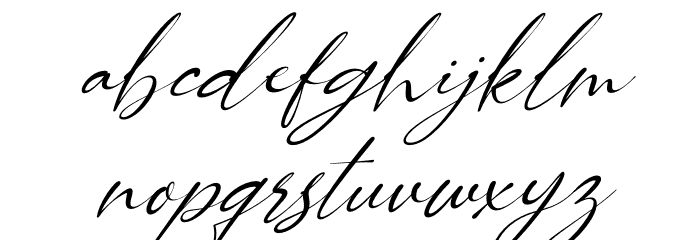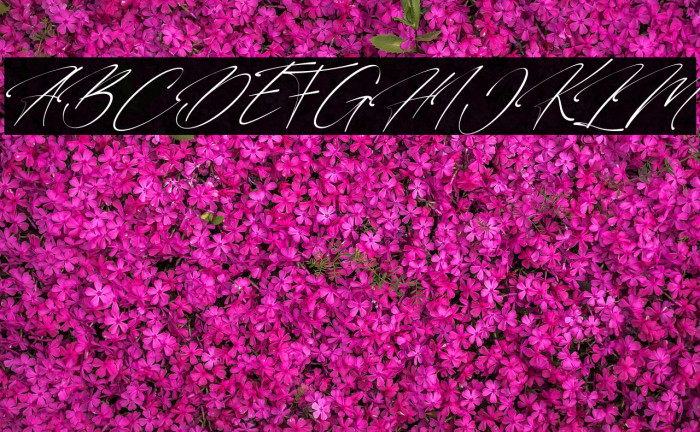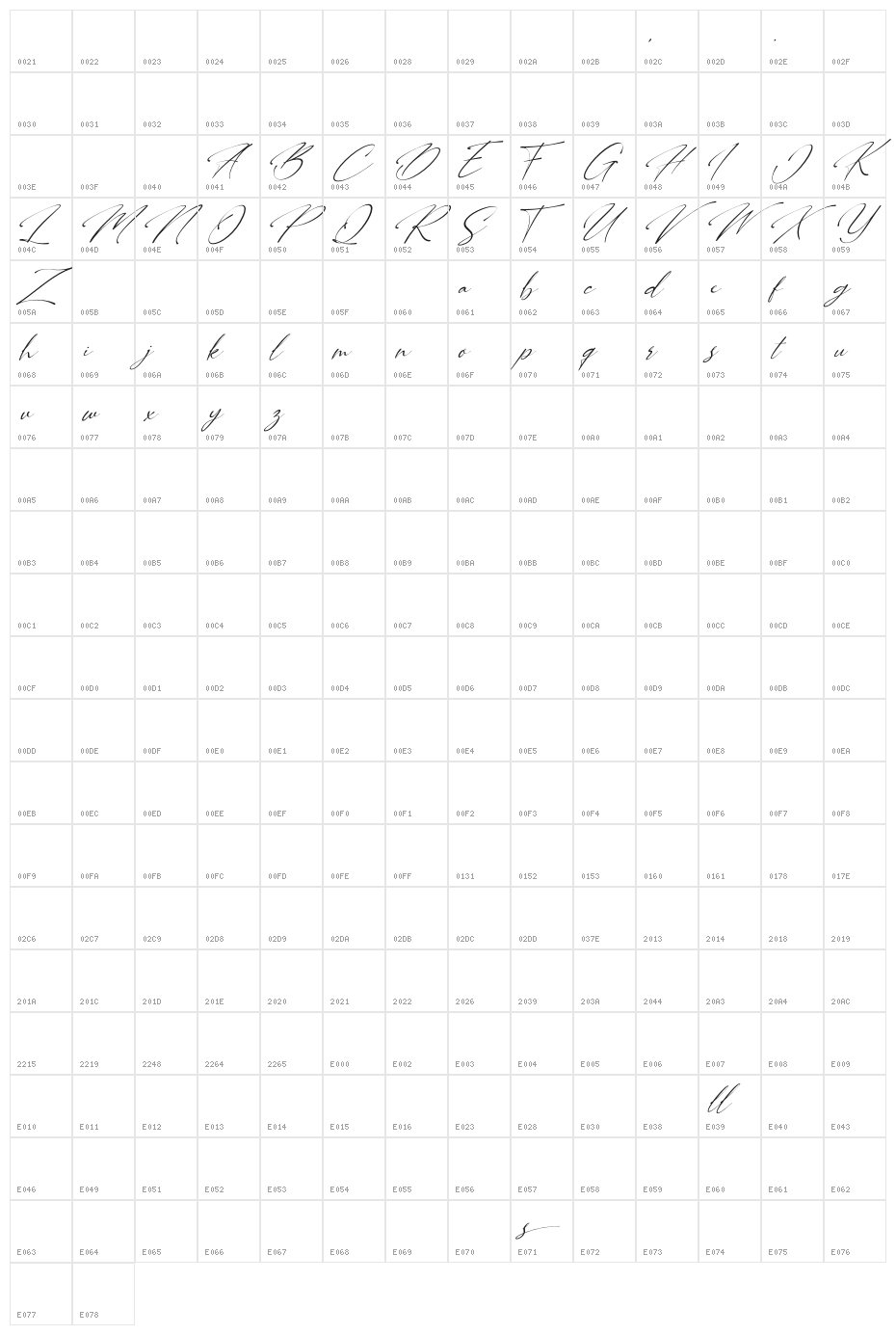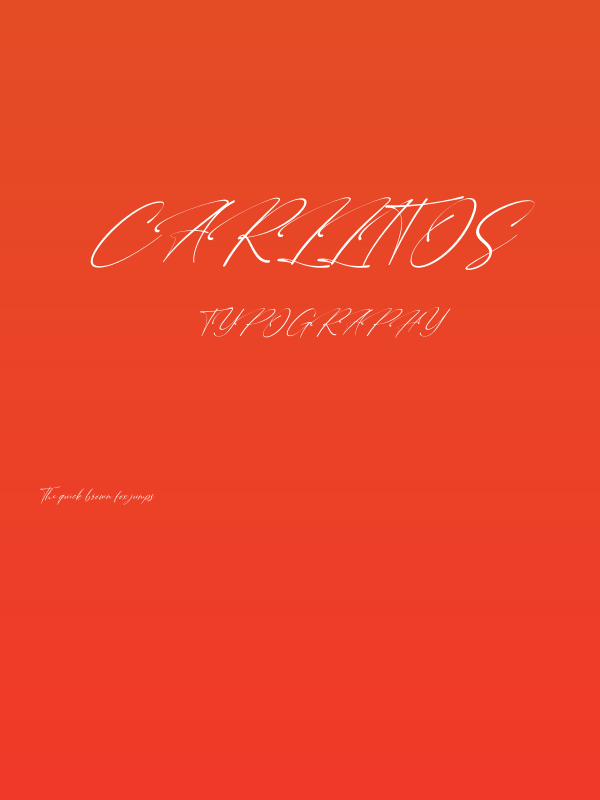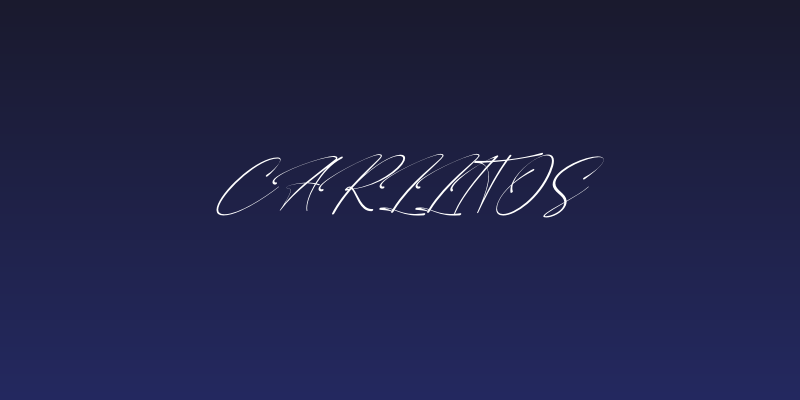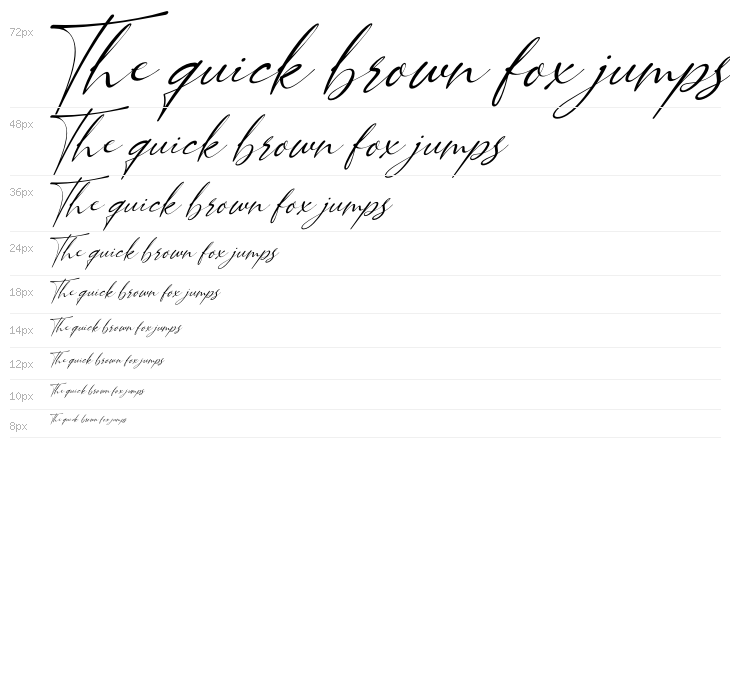
Carllitos Font
This elegant script font features flowing, interconnected letters that exude a sense of sophistication and grace. The uppercase letters are characterized by their sweeping curves and delicate flourishes, while the lowercase letters maintain a consistent fluidity that enhances readability. The font's design is reminiscent of traditional calligraphy, with a modern twist that makes it suitable for contemporary applications. The characters are slightly slanted, adding to the dynamic movement of the text. The overall appearance is refined and stylish, making it ideal for projects that require a touch of elegance.
A sophisticated script font with flowing, interconnected letters and elegant flourishes.
- Overall Style: Elegant, Modern
- Use Case: Logos, Invitations, Branding